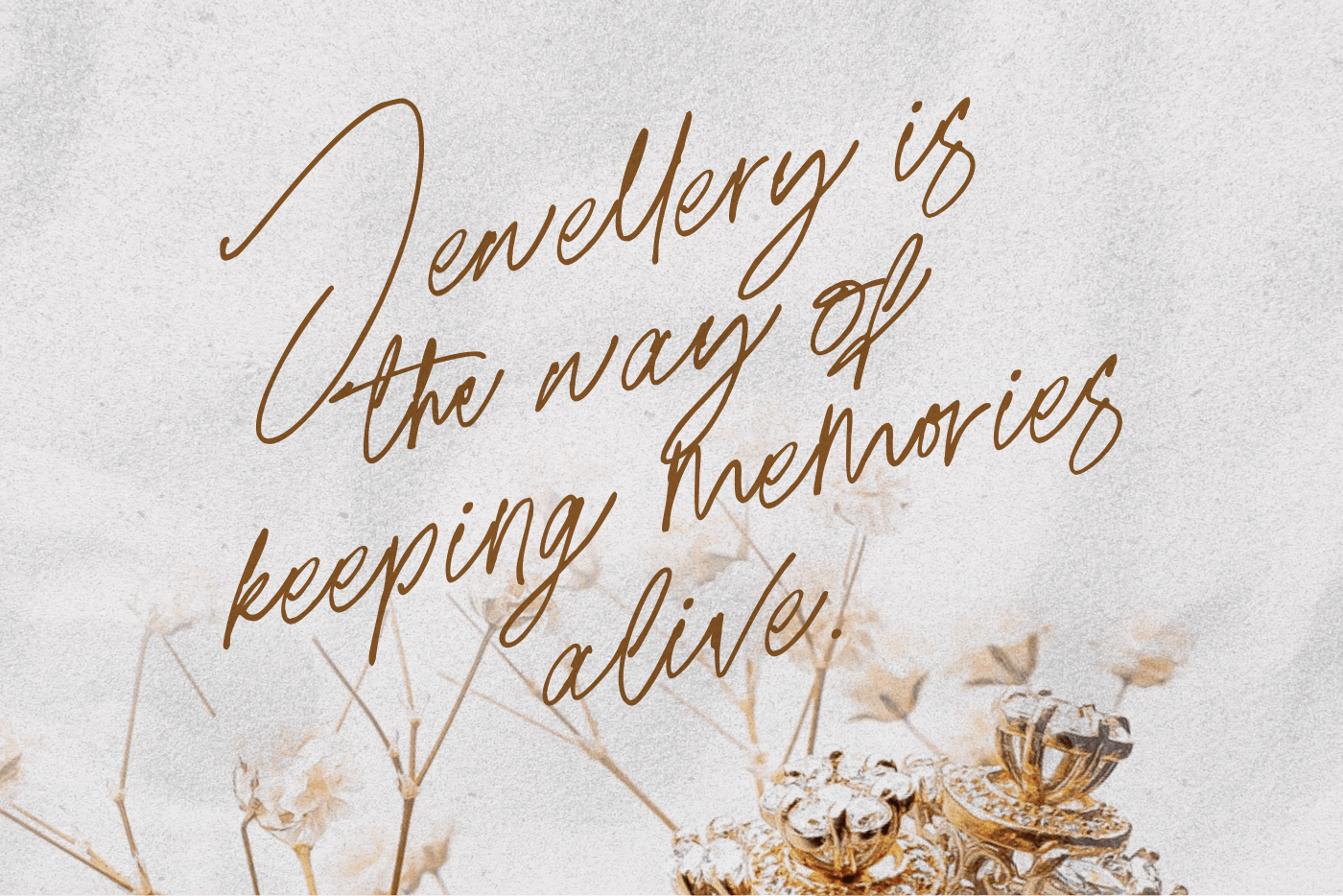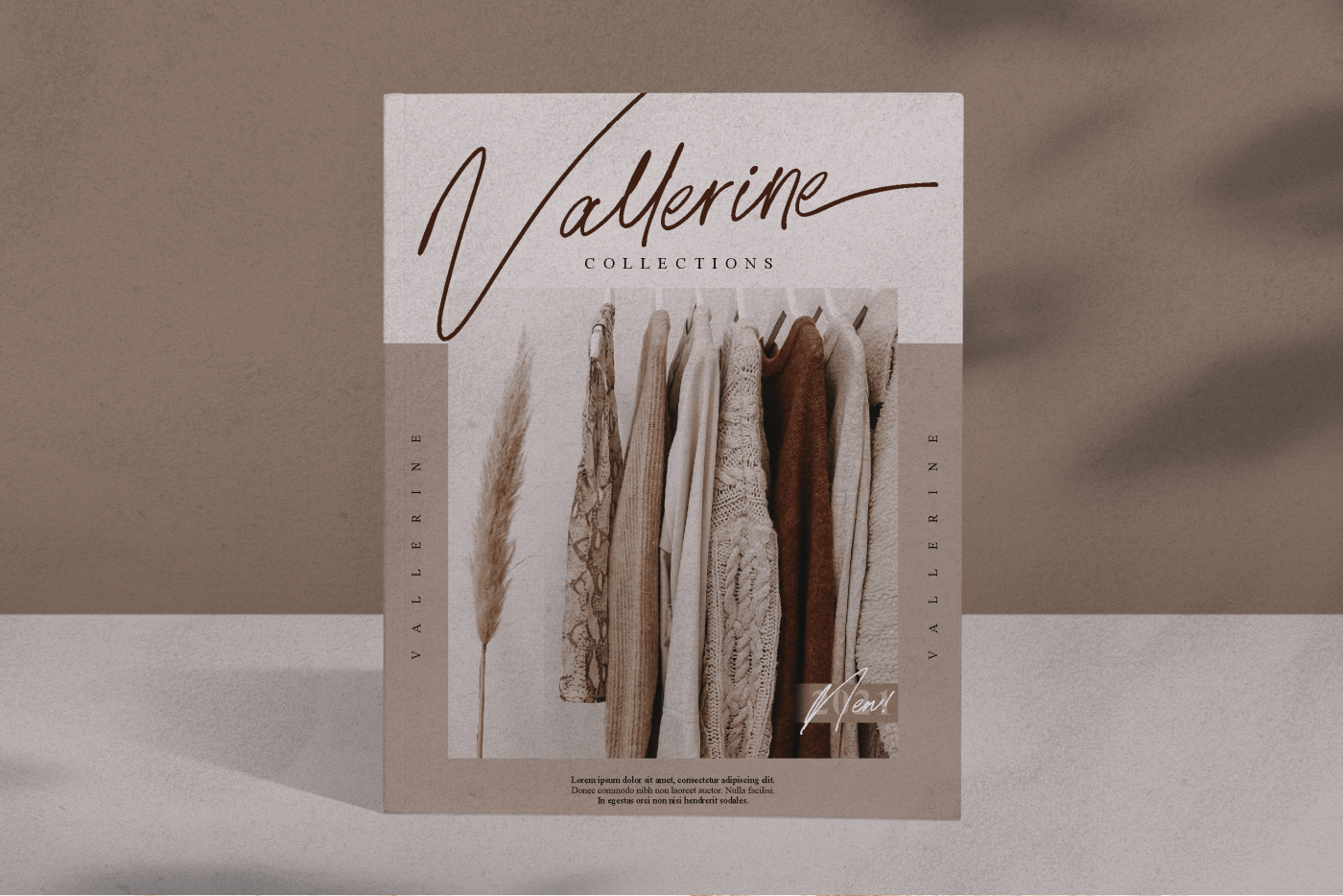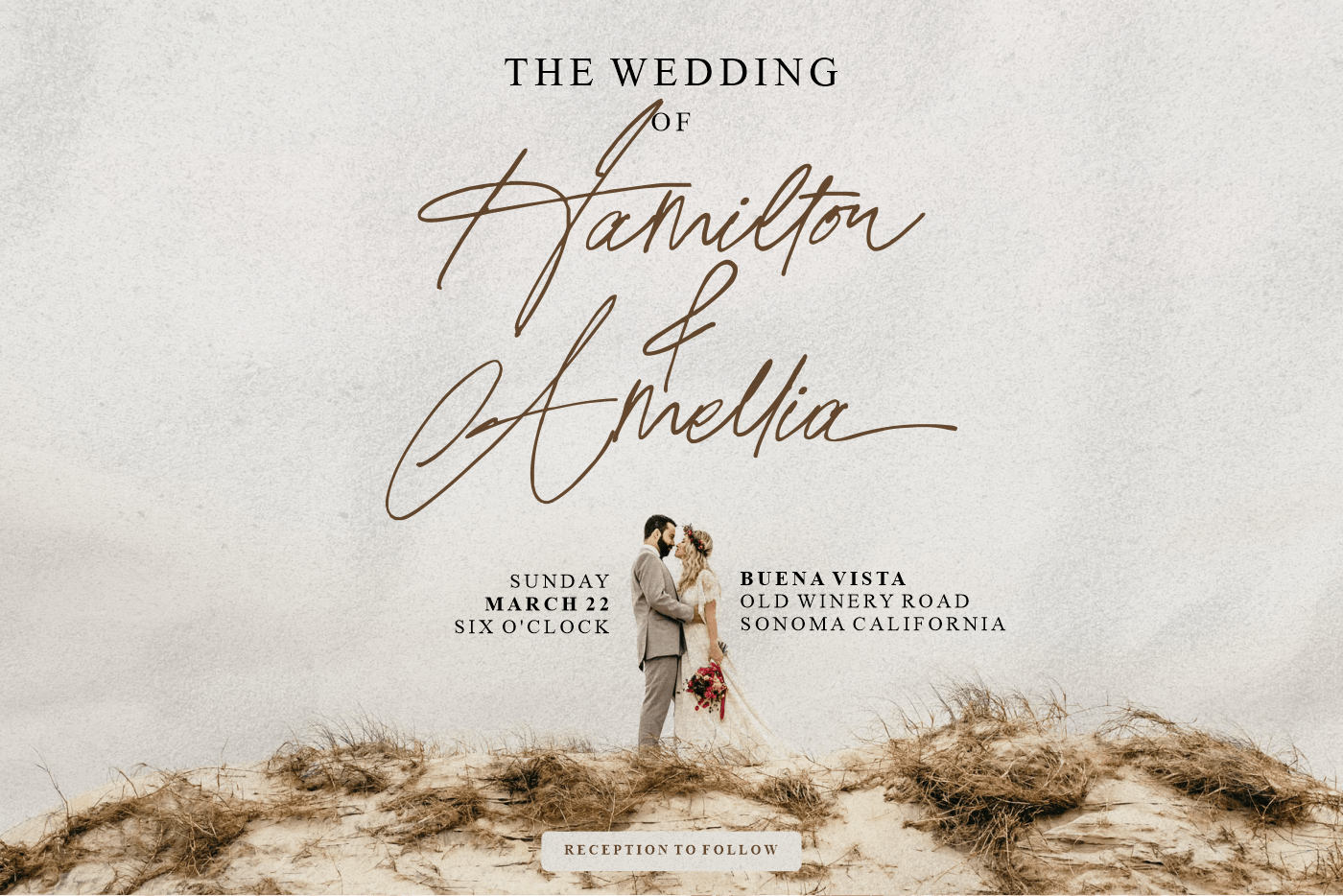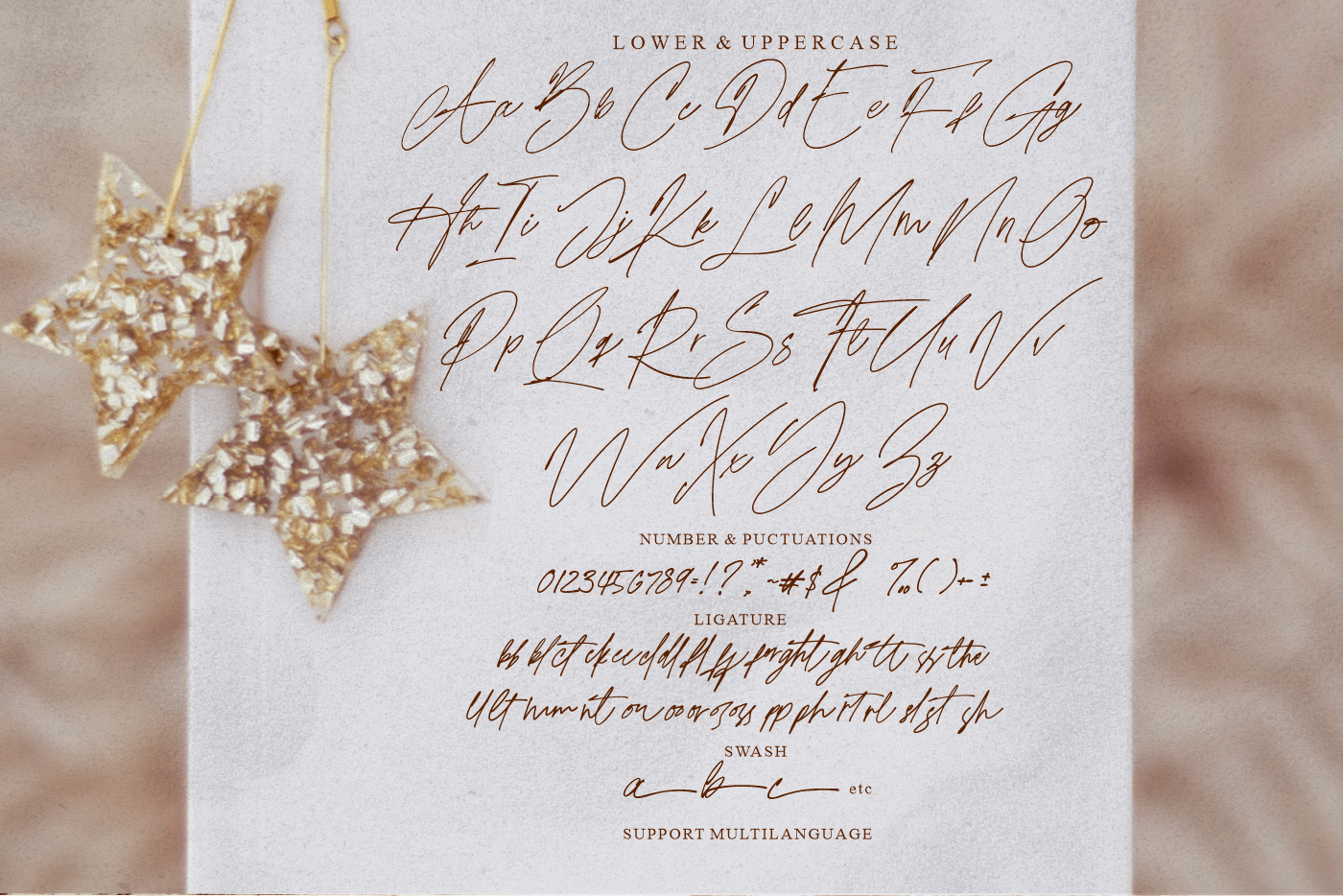
Lattus Brighteny Font
Lattus Brighteny Handwritten Font
This is a font with ink effect & natural flow. there are several ligatures that make the combination of letters more beautiful. Handwritten original font that looks luxurious and beautiful.